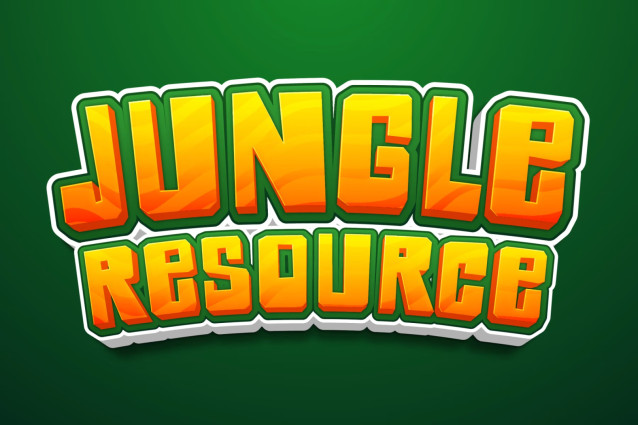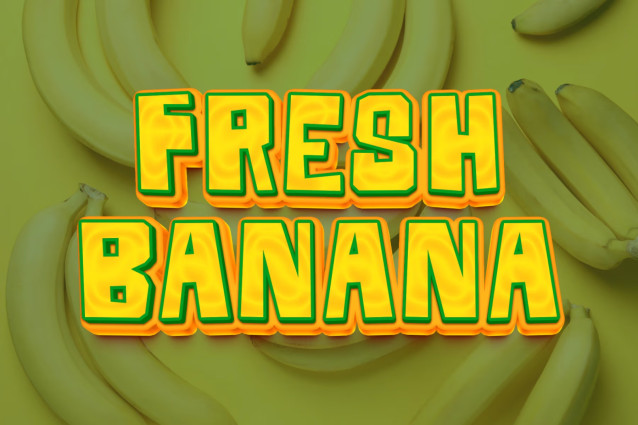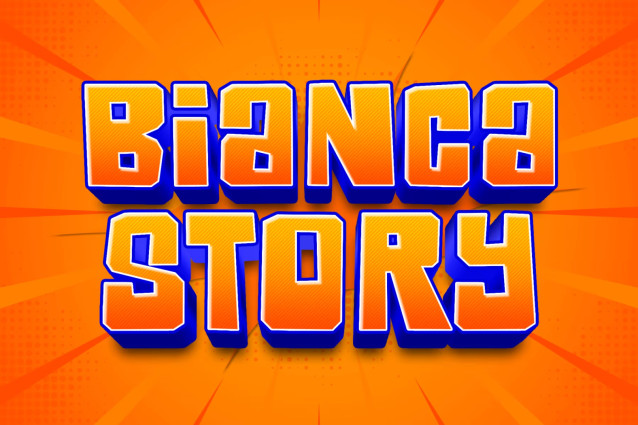
Bianca Story Font
Bianca Story Font is a bold yet friendly comic-style display font. Whether you use it for cartoon-related designs, children’s games, or just any creation that requires a lovely touch, this font will be an amazing choice.